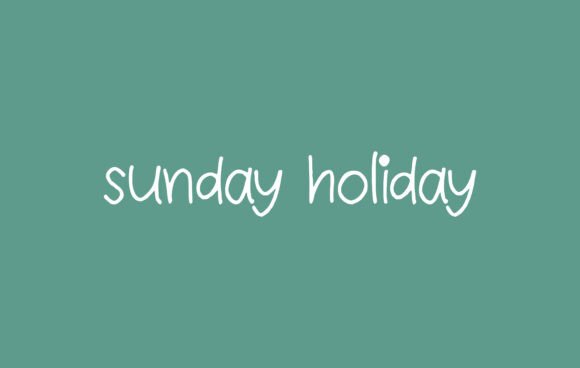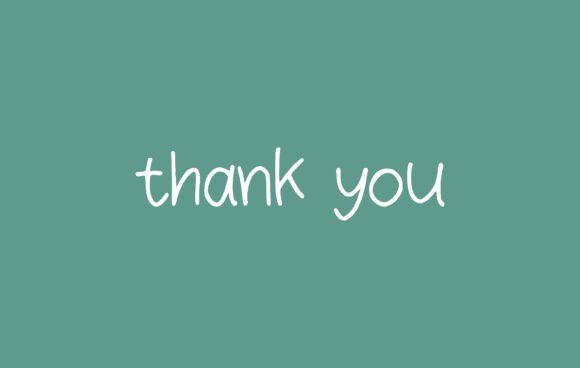
Introduction to Ragshadow Font
Ragshadow font is an authentic handwritten font with a romantic touch.
Ragshadow Font offers exceptional quality and versatility, making it a valuable addition to your design toolkit. Whether you’re creating for personal projects or commercial use, Ragshadow Font delivers professional results.